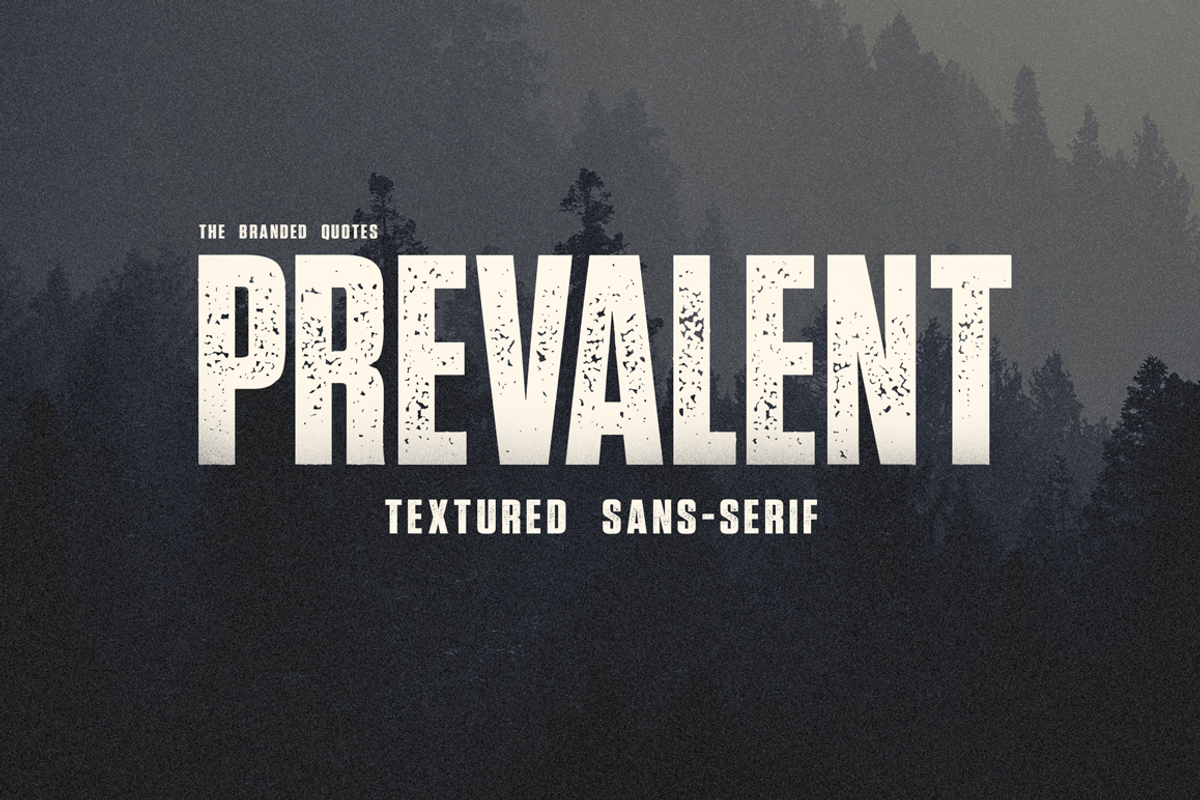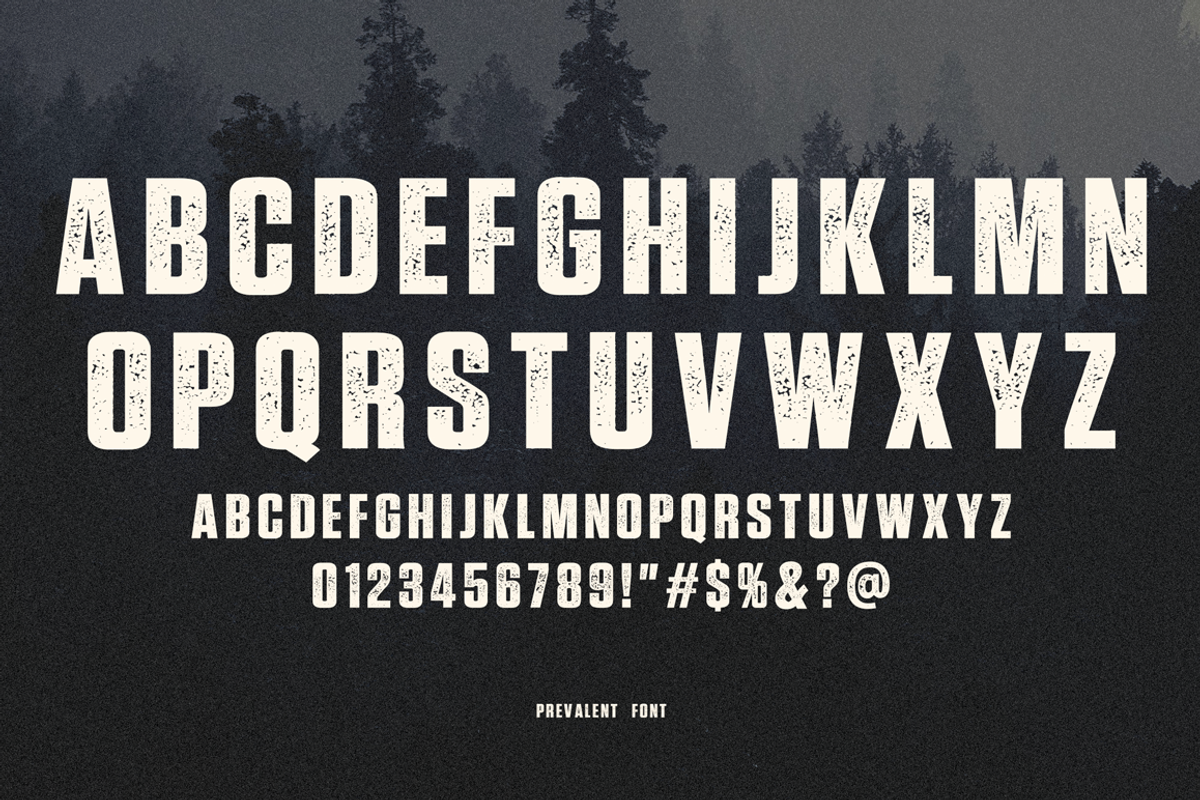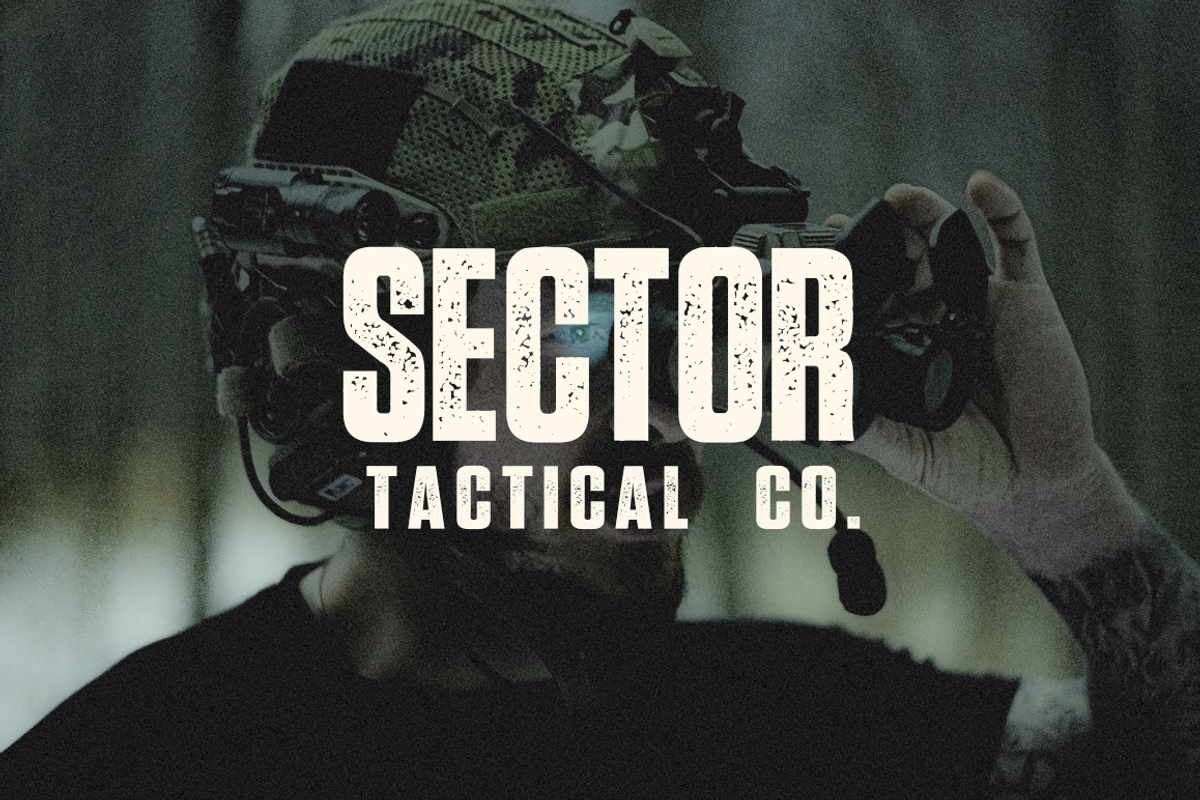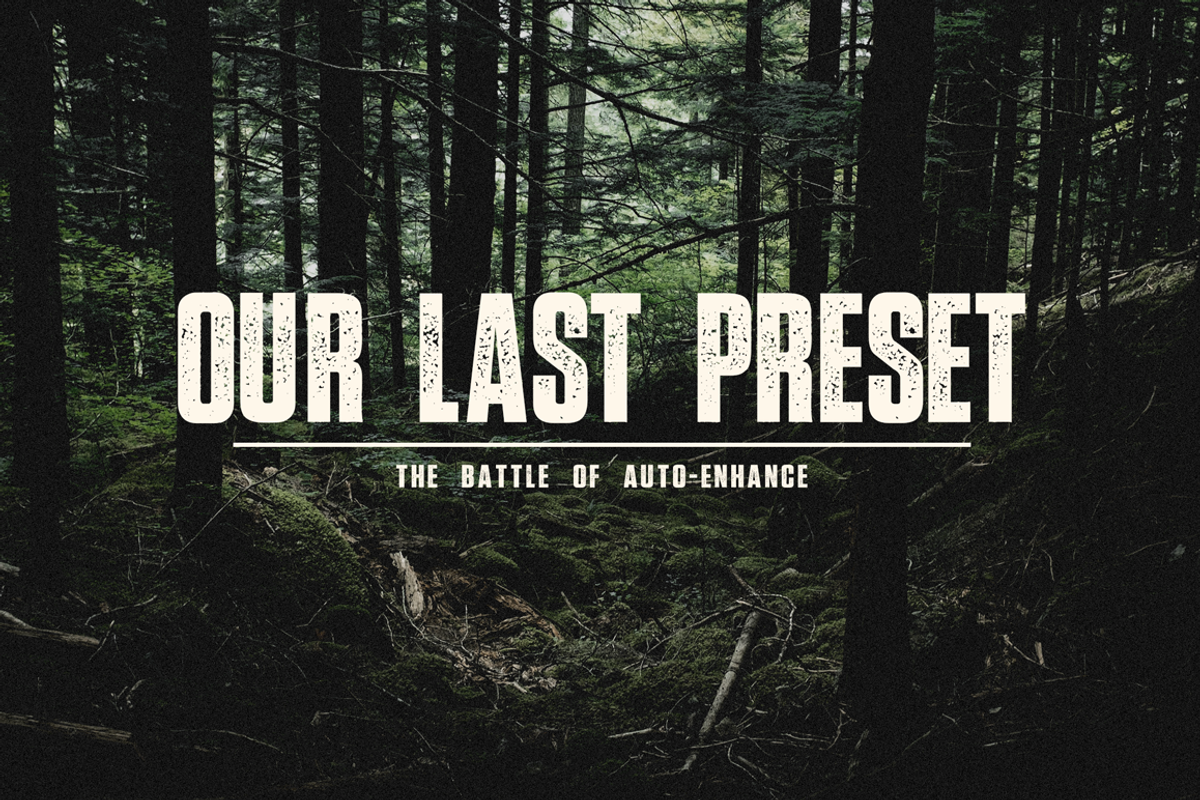
Prevalent - Textured Sans Serif
Inspired by the massive rise of automatic color-grading on photography and videography. Prevalent is a Sans Serif with an incorporated distress, texture effect. The acrylic engraving gives a vintage and aesthetic look on your project. This font works well with your macro photography, portrait and wide-angled shots. Prevalent font also is best used for cinematic videos, classic posters, invitations and greeting cards, band album cover and product presentations.
OTF Prevalent Regular - sans serif with acrylic texture
OTF Prevalent Minor - short and narrow extended-space version
Features: Basic Alphabet, Punctuations and Numerals